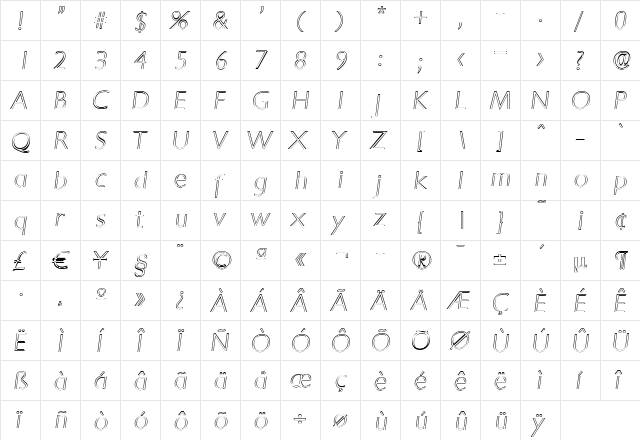
DavidBeckerOutline-ExtraLight Italic Font Preview
Design Context for DavidBeckerOutline-ExtraLight Typeface
DavidBeckerOutline-ExtraLight brings ornamental detail and strong personality to headlines and identities, where visual impact matters more than quiet functionality. The slanted form adds forward momentum and visual energy. The delicate stroke weight brings airiness and refinement to layouts.
Font Pairing: Pair with a clean neutral sans-serif for body copy to let DavidBeckerOutline-ExtraLight's character lead without overwhelming the composition.
Pro Tip: Treat DavidBeckerOutline-ExtraLight as the centrepiece of your typographic hierarchy. One strong heading set in a decorative face can carry an entire layout.